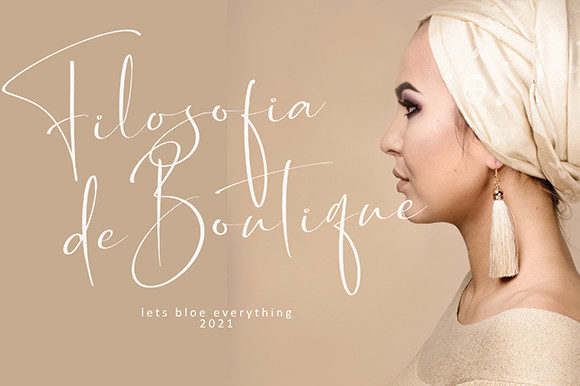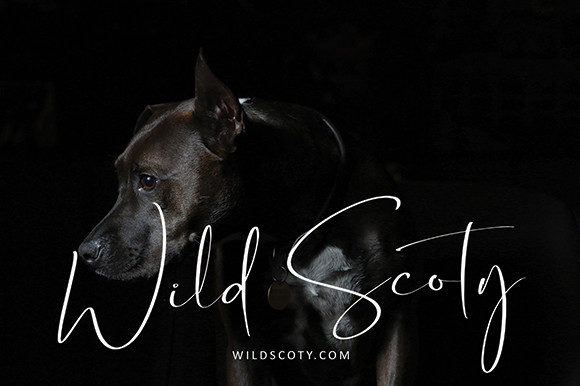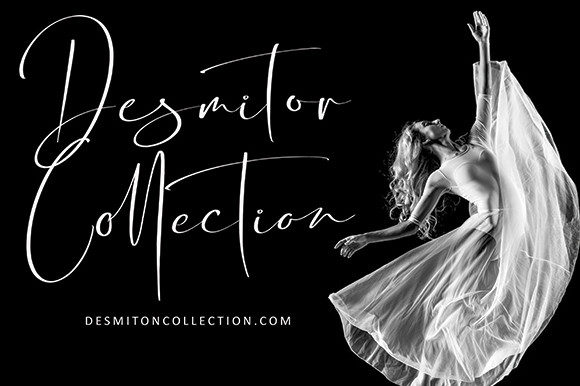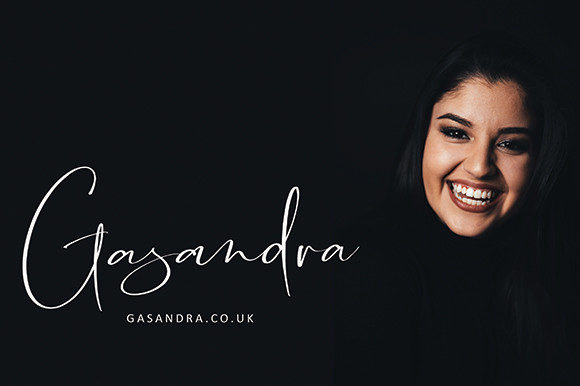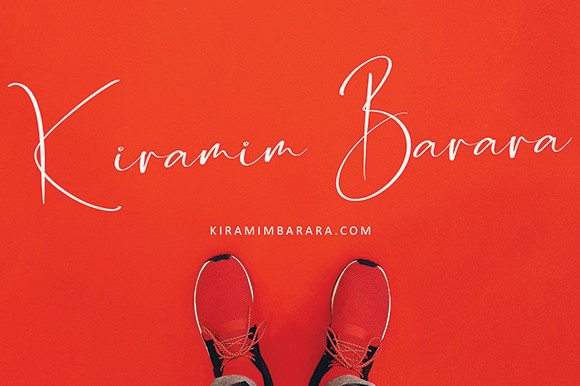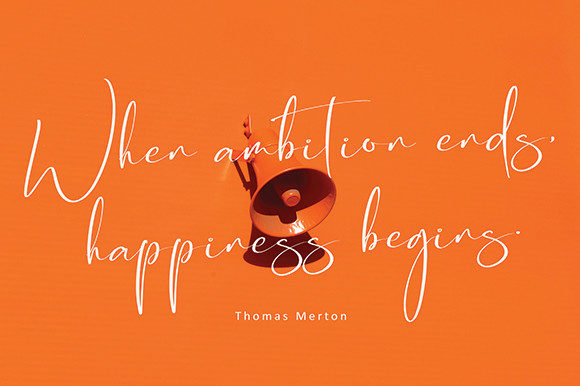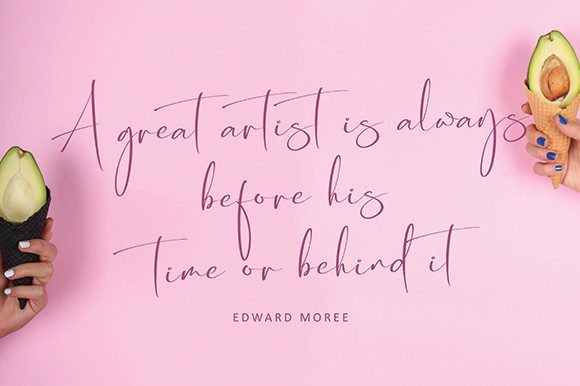
Brently Garfield Font
About Brently Garfield Font
Brently Garfield is a beautiful and refined script font. It has a classy, elegant and modern look that can be used for logos, branding, invitations, stationery, wedding designs, social media posts, and much more!